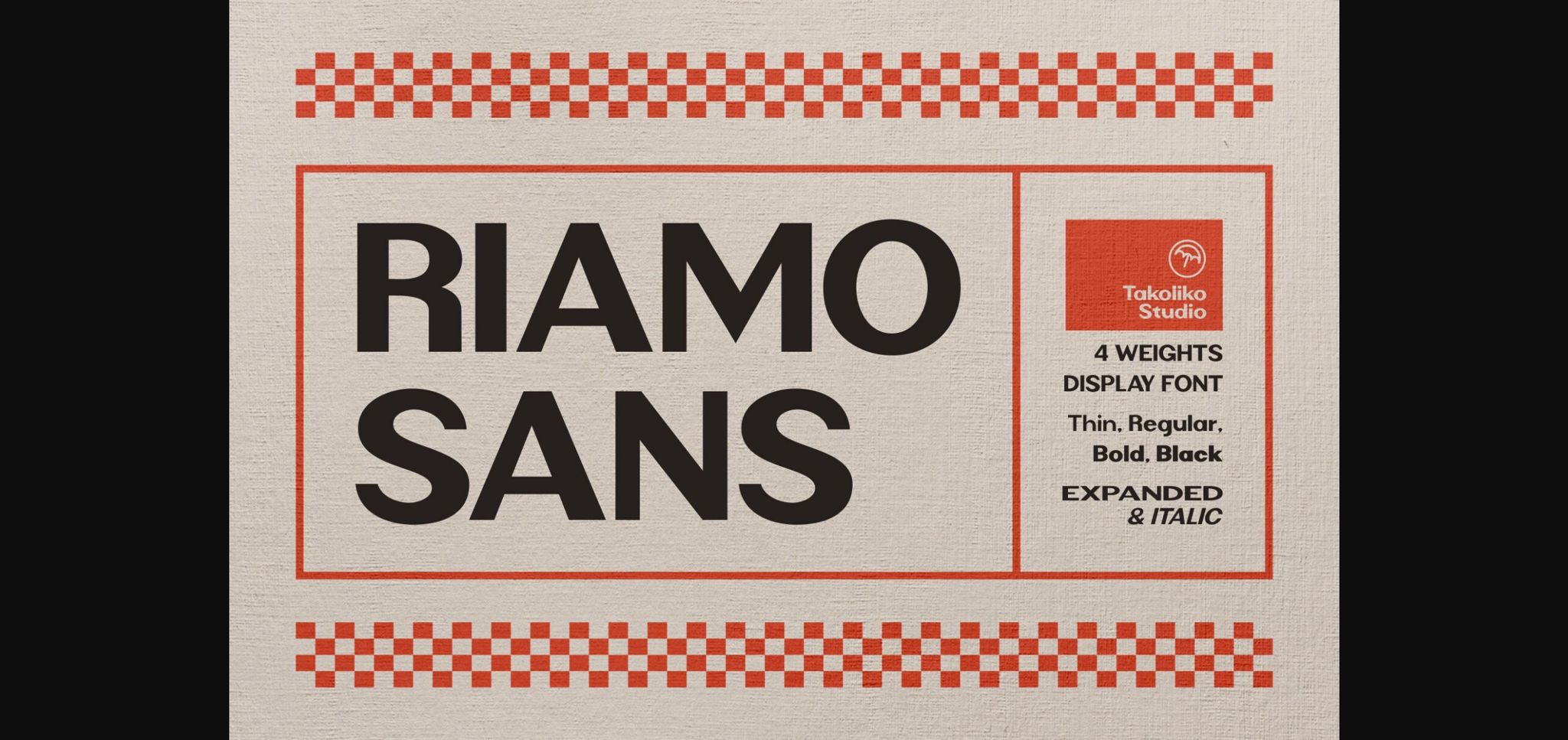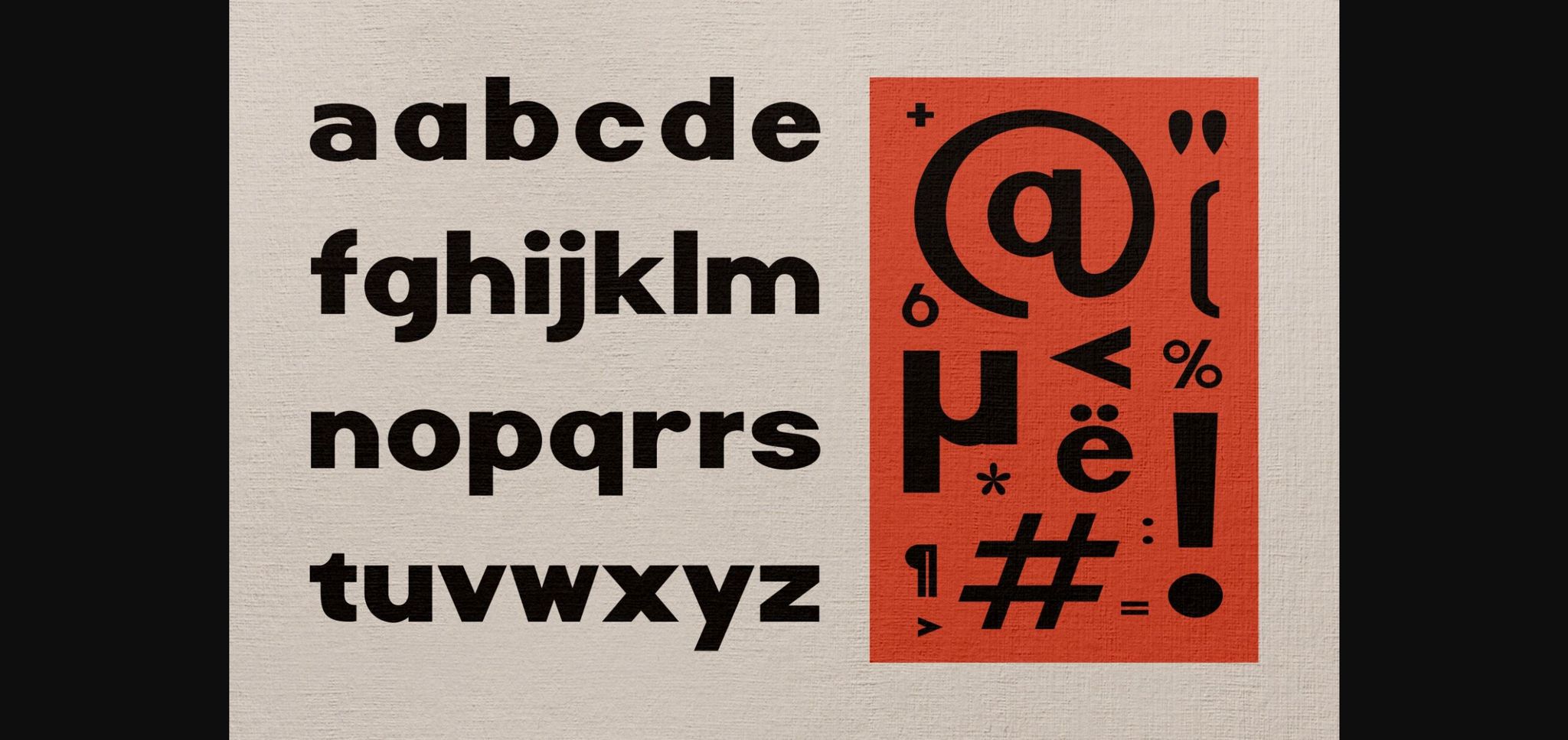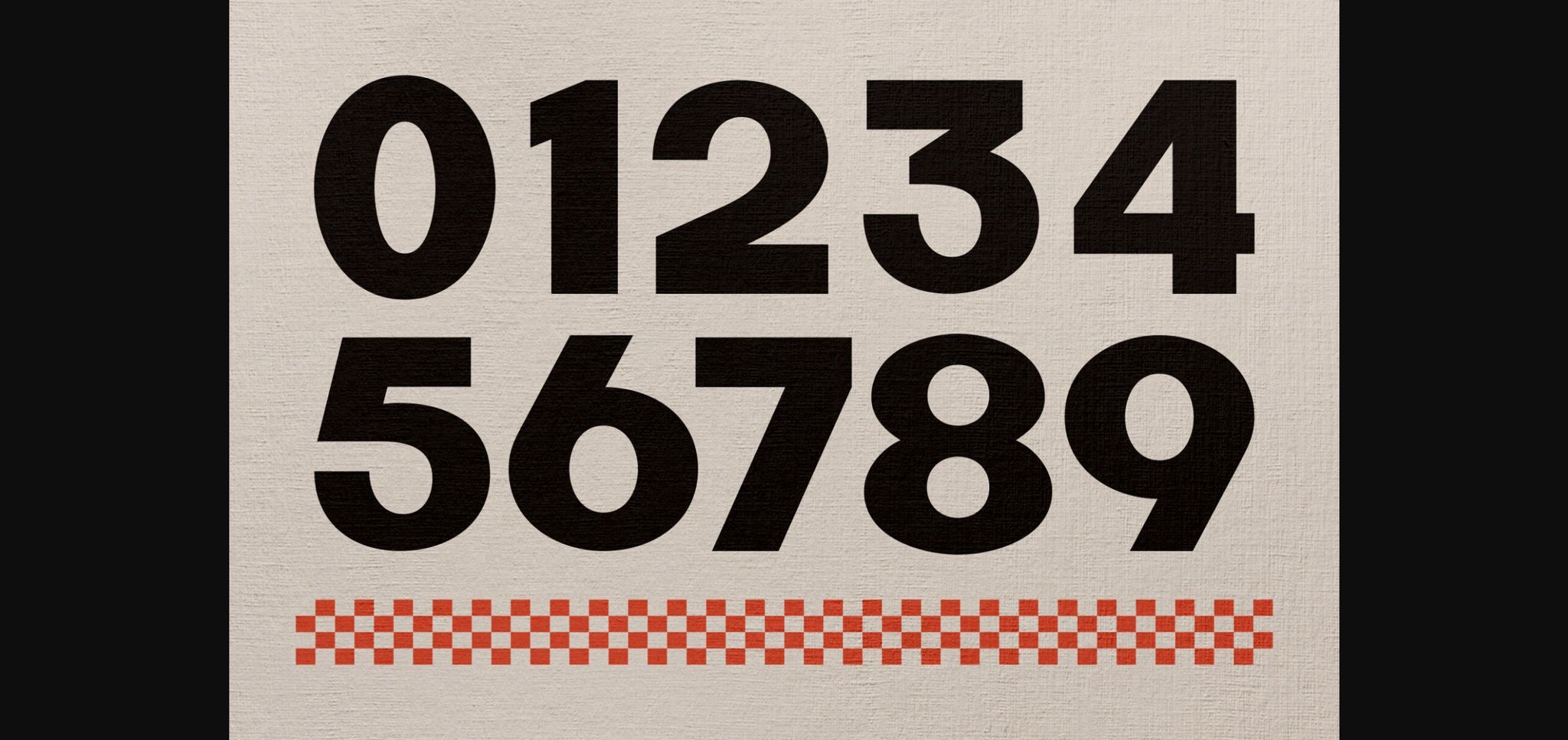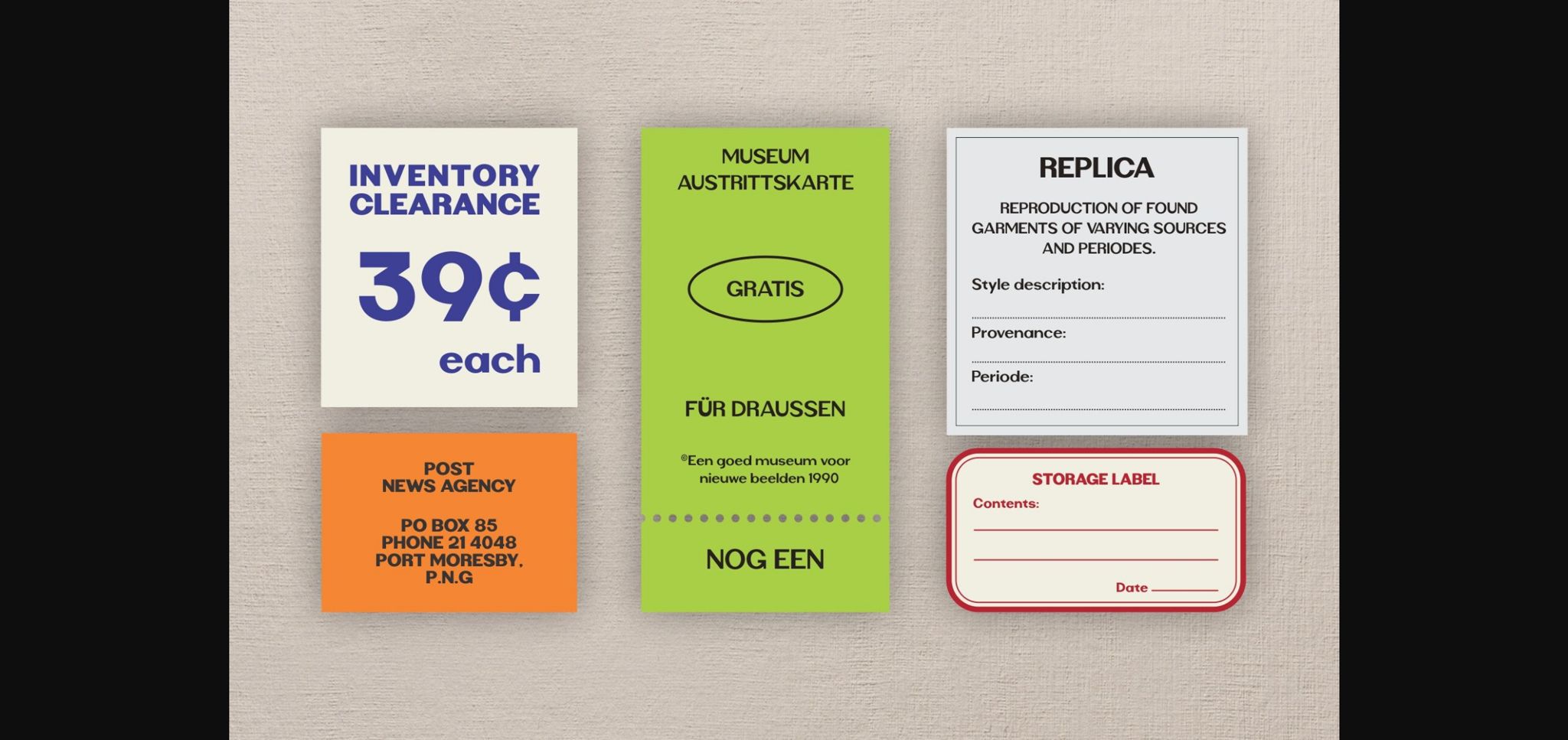
About Riamo Sans Font
Welcome the elegance of Riamo Sans, an expertly designed Sans Serif typeface. Boasting a rare balance of yesteryear’s charisma and modern finesse, this font takes versatility to new heights. Four distinct weights breathe added dynamism into your design canvas, lending a new dimension and versatility to your craft. Expanded and italic versions further enrich its stylistic scope. Riamo Sans is not simply a font, it’s an artistic statement that resonates the beautiful amalgamation of past and present. Surrender to the charm of Riamo Sans, and add sophistication to your creative journey.